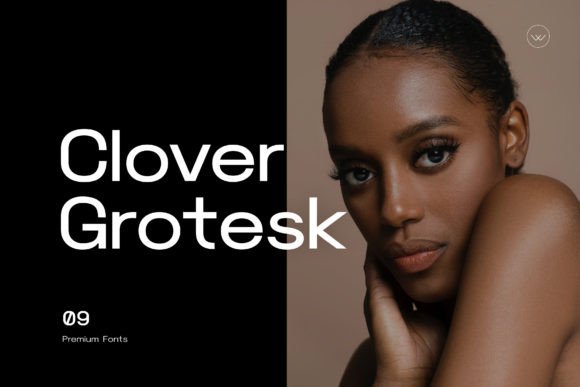
Looking for the perfect font for your high-end branding project? Look no further than Clover Grotesk, the deluxe and exclusive sans-serif font created by Webhance. This font is the epitome of elegance and sophistication, with clean, modern lines and refined details that make each letter a true masterpiece.
Whether you're designing a logo for a luxury brand or working on editorial design, Clover Grotesk is the perfect choice. Its timeless design will ensure that your project looks sleek and modern for years to come.
Clover Grotesk is the best font for logo design in 2015 and continues to be a top choice for designers today. Its versatility makes it a great option for a wide range of projects, from business cards to billboards.
But what really sets Clover Grotesk apart is its ability to exude luxury and exclusivity. This font commands attention and instantly elevates any project to the next level. It's perfect for businesses that want to make a statement and leave a lasting impression on their customers.
In short, if you're looking for a font that combines elegance, sophistication, and versatility, Clover Grotesk is the perfect choice. Download it today and see for yourself why it's one of the most sought-after fonts on the market.